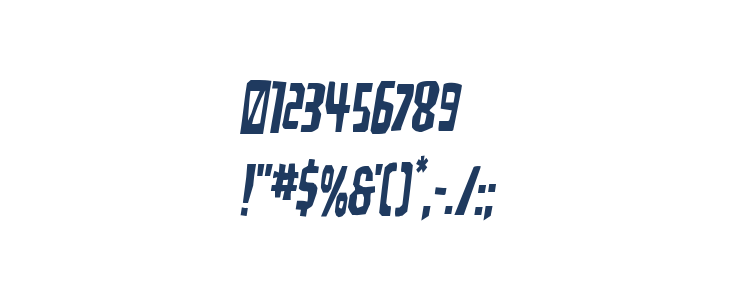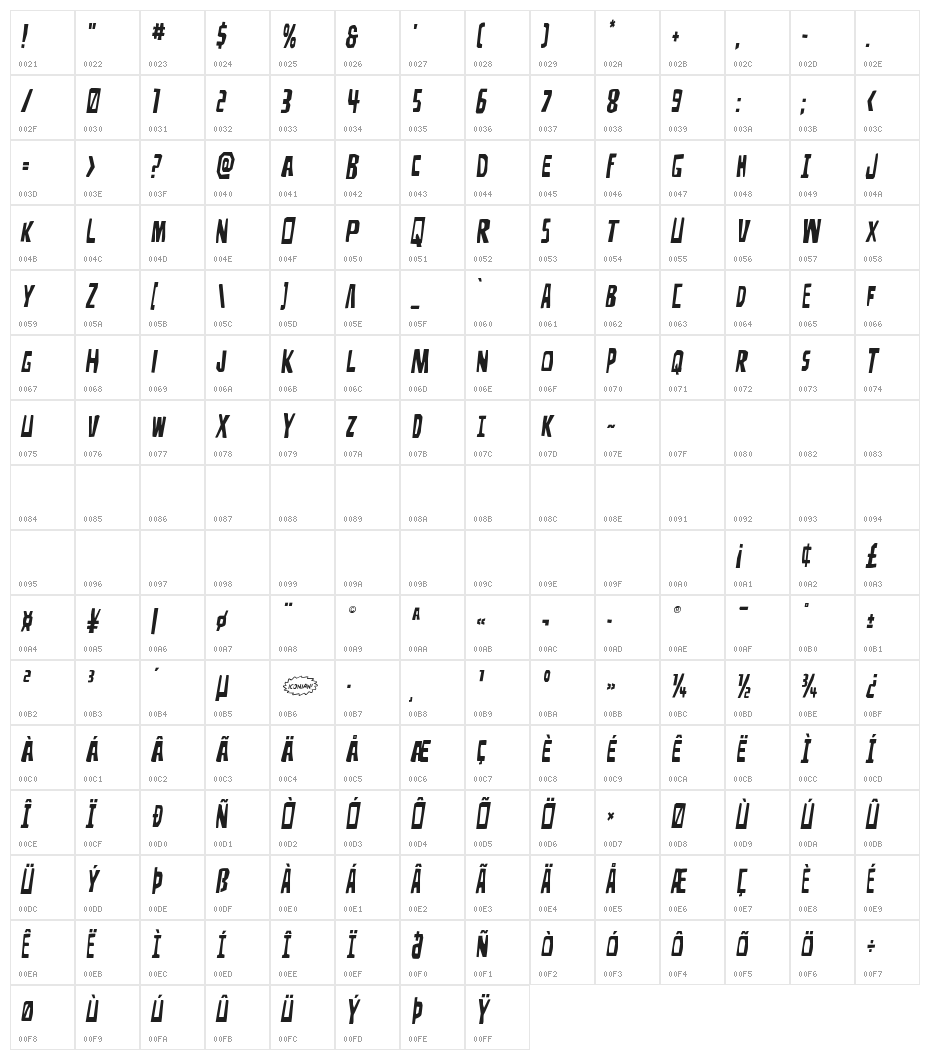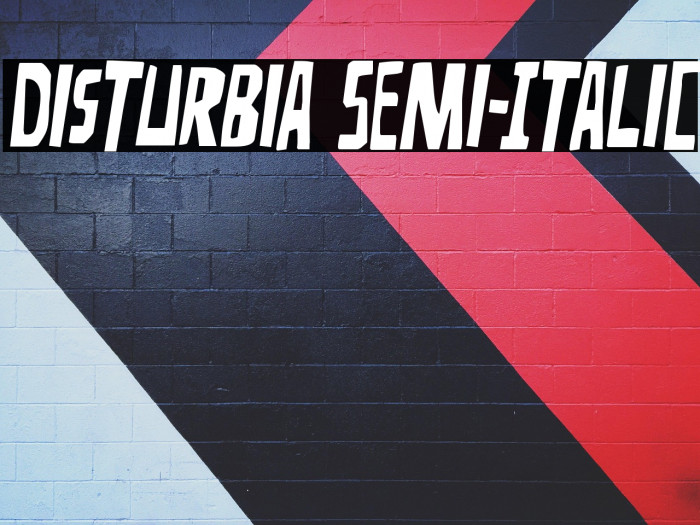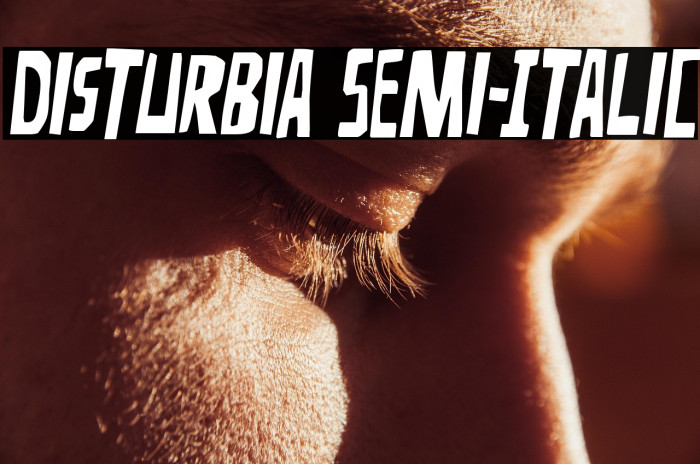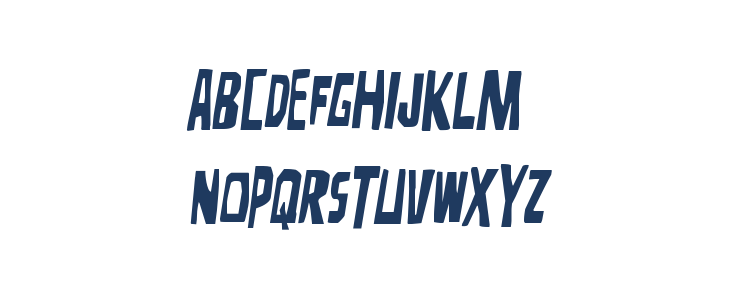
Disturbia Semi-Italic Font
Disturbia Semi-Italic Description
This font features a bold and dynamic style with a semi-italic slant, giving it a sense of motion and energy. The characters are angular and slightly condensed, creating a compact appearance that is both modern and edgy. The uppercase and lowercase letters maintain a consistent design, with sharp edges and a distinct geometric influence. Numbers and special characters follow the same stylistic cues, ensuring uniformity across all glyphs. The overall design is striking and attention-grabbing, making it suitable for projects that require a bold statement.